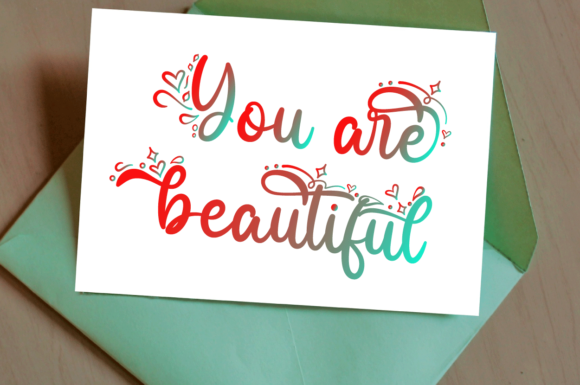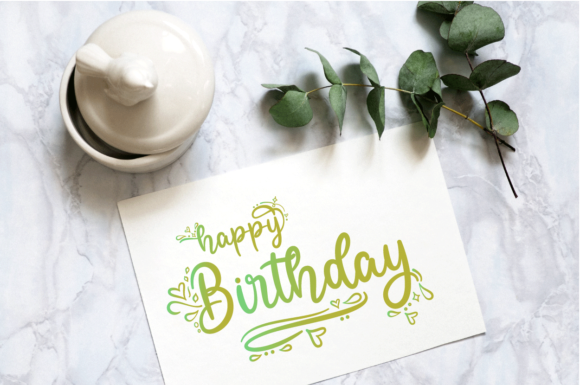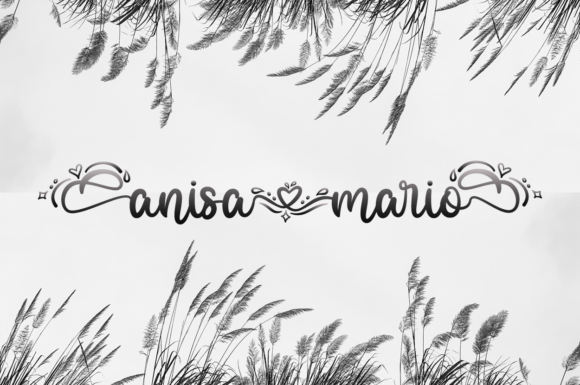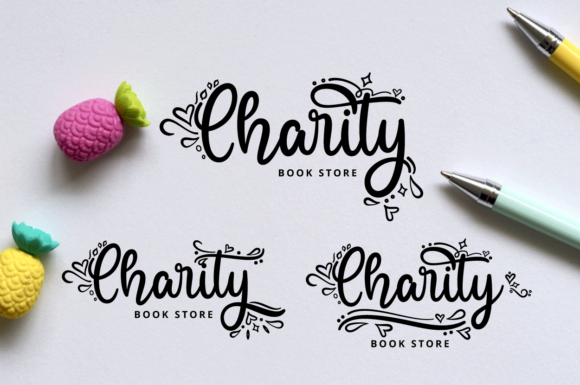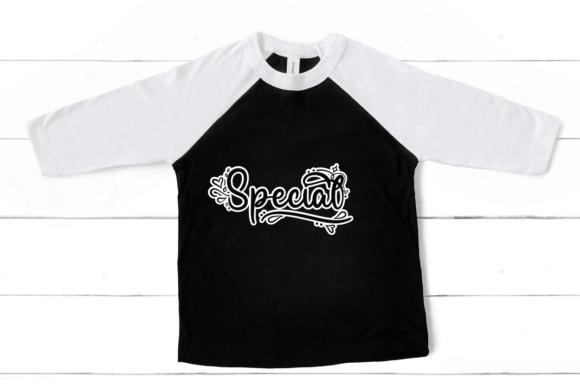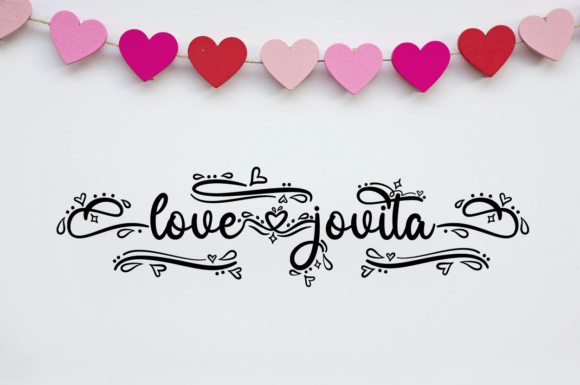
The Enchanting Elena Font: A Designer’s Delight
I’ll never forget the time I was working on a wedding invitation project, and my client asked for a font that was ” elegant, yet playful, and would make their guests swoon.” I scoured the internet, tried countless fonts, but nothing seemed quite right. That was until I stumbled upon the stunning Elena Font. ✨
Its delicate and flowing script style instantly captured my heart, and I knew I had found the perfect fit for my project. In this article, I’ll share my love for Elena Font, its features, and provide a comprehensive guide on how to use it to elevate your designs.
An Honest Review of Elena Font
- ✨ Elegant and flowing script style that’s perfect for wedding invitations, stationery, and social media posts
- 💫 Highly versatile and can be used for various design projects, from formal to informal
- 🎉 Beautifully crafted with attention to detail, making it a joy to work with
While Elena Font is an exceptional font, there are a few minor quirks to be aware of: 🤔
- ⚠️ Some users may find the font requires a bit of fine-tuning to get the kerning just right
- ⚠️ As with any script font, it may not be suitable for very small font sizes or body text
The Designer Inspiration Behind Elena Font
Elena Font was crafted with love and attention to detail by a talented designer who drew inspiration from classic calligraphy and modern script styles. 💫
The designer’s goal was to create a font that would evoke emotions and add a touch of elegance to any design project. With Elena Font, you’ll feel like you’re adding a dash of magic to your creations! ✨
A: PUA (Private Use Area) encoding allows font users to access glyphs and swashes easily, making it simpler to create beautiful designs. With Elena Font, you can access all the glyphs and swashes without needing additional software or complicated workarounds.